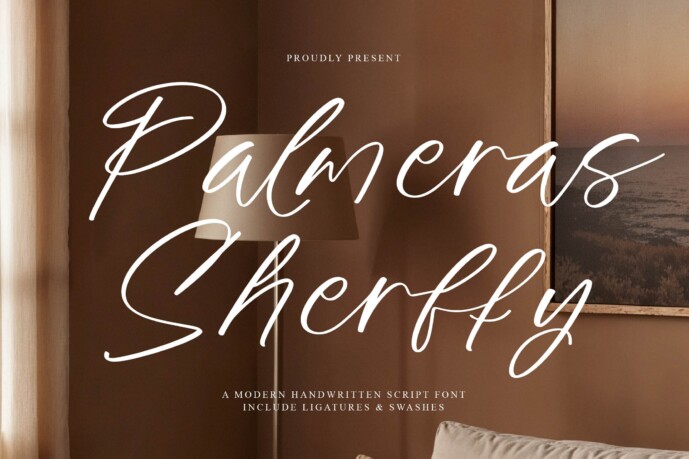
Palmeras Sherffy is a modern handwritten script font with a refined, effortless flow. Designed to bring elegance to branding, wedding stationery, and editorial design, its stylish ligatures and swashes make every composition feel personal and upscale.